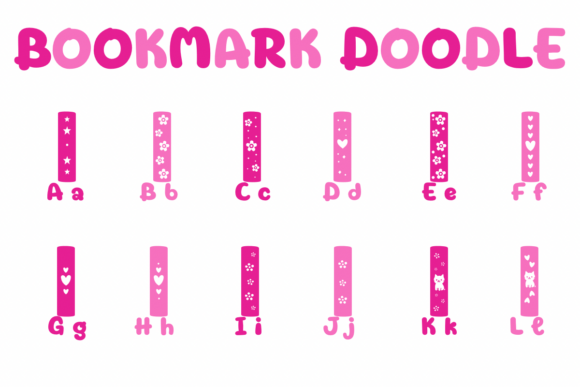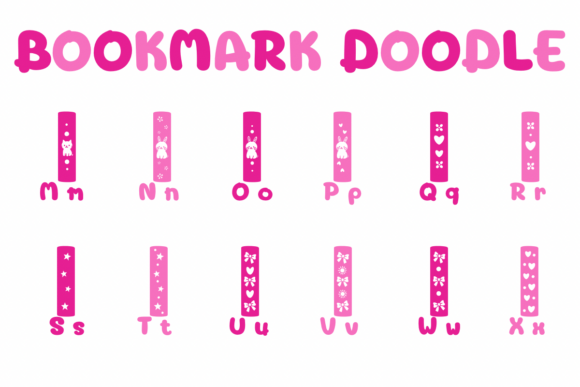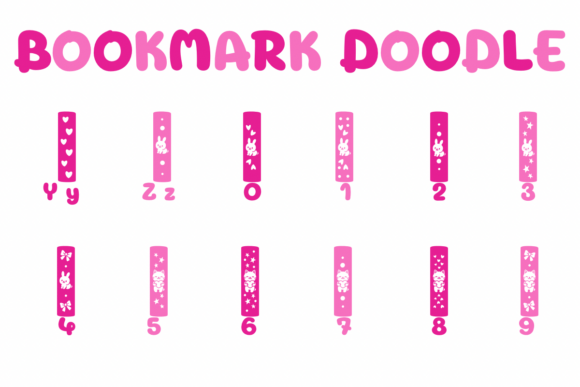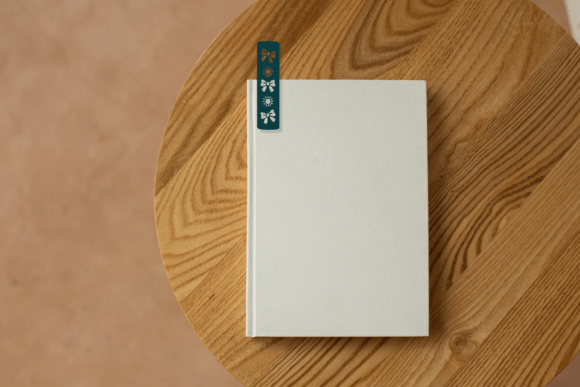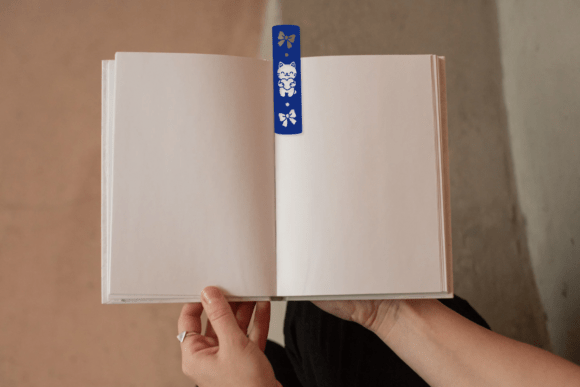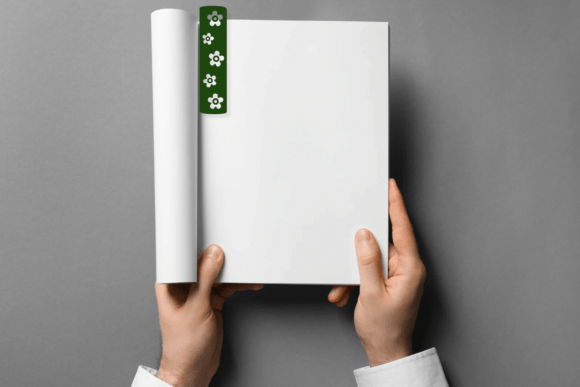
Unleash Your Creativity with the Bookmark Doodle Font
Have you ever found yourself scribbling doodles on the edges of a bookmark, or sketching out a rough design on a piece of paper? For many creatives, these moments of inspiration are the spark that sets their imagination ablaze. And what if you could capture that same free-spirited energy in your designs?
Enter the Bookmark Doodle Font, a charming dingbats font with a sketched style that’s perfect for adding a personal touch to your projects. Whether you’re crafting wedding invitations, DIY crafts, or decorations, this font is sure to bring your ideas to life. As a designer, you know how valuable it is to have the right tools at your fingertips – and the Bookmark Doodle Font is a valuable addition to any creative arsenal.
Bookmark Doodle Font Key Features
- Unique, Hand-Drawn Design: Bookmark Doodle Font features a distinctive, hand-drawn style that adds a touch of whimsy and personality to your designs.
- 300+ Characters: This font includes a wide range of characters, including uppercase and lowercase letters, numbers, punctuation marks, and special characters.
- Perfect for Creative Projects: Bookmark Doodle Font’s unique design and wide range of characters make it an ideal choice for creative projects, such as branding, advertising, and packaging design.
Designer Review: Bookmark Doodle Font
Overall, I think the Bookmark Doodle Font has some great qualities, but also some limitations that might make it less appealing to some designers.
- The whimsical feel of the font makes it perfect for creative projects that need a touch of playfulness.
- The doodle-inspired style is unique and can help your designs stand out from the crowd.
- The font is highly customizable, allowing you to adjust the color, size, and spacing to fit your project’s needs.
Limited by ⚠️
- The font is not as legible at smaller sizes, which can make it difficult to read in certain contexts.
- The high level of customization can be overwhelming for some users, especially those who are new to font design.
- The font’s doodle-inspired style might not be suitable for formal or professional projects, where a more traditional font is preferred.
In conclusion, the Bookmark Doodle Font is a great choice for designers who want to add a touch of whimsy to their projects. However, it may not be the best fit for every design project. With some careful consideration and customization, this font can be a valuable addition to your design toolkit.
Use the Bookmark Doodle font to create visually appealing headings, titles, and labels. Combine it with custom doodles to add a playful touch to your designs. Experiment with different font sizes and colors to create a unique look.
Use the Bookmark Doodle font for: social media graphics, blog post titles, product labels, and educational materials. It’s perfect for creating eye-catching headings and adding a touch of whimsy to your designs.